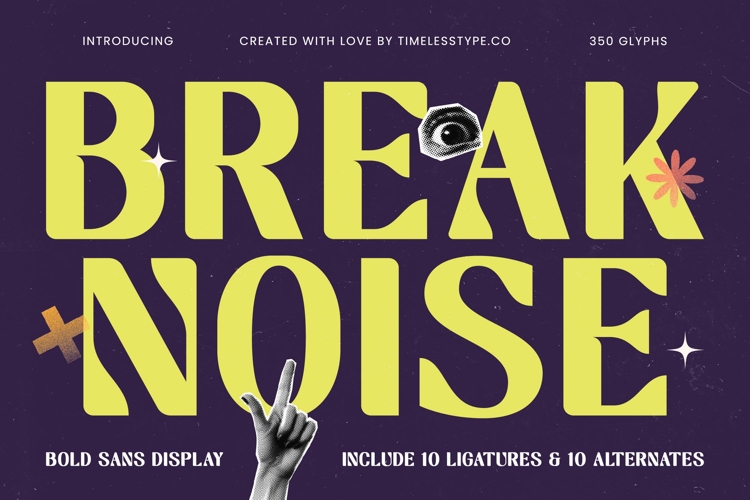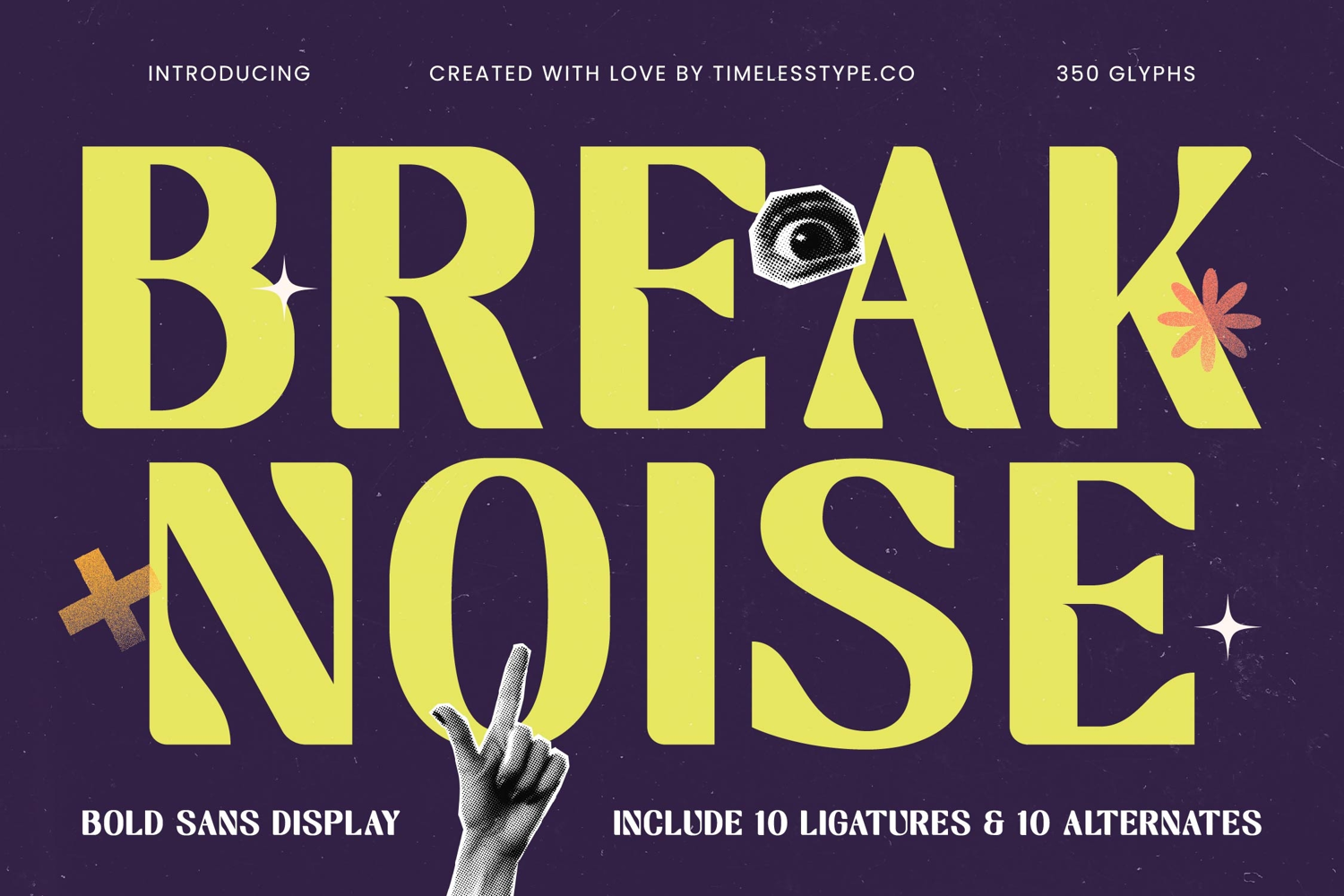
Break Noise - Bold Sans Display
Ignite your designs with undeniable presence. Introducing Break Noise - Bold Sans Display, a striking display typeface engineered for maximum impact and visual intrigue. Its robust, solid forms combined with subtly rounded terminals create a bold yet approachable aesthetic, perfect for commanding attention. This sans-serif gem offers a distinctive character that blends vintage modern appeal with contemporary sharpness, setting your work apart.
Unleash unparalleled creative freedom with a font designed for versatility. Break Noise - Bold Sans Display provides designers with a rich toolkit, including 350 glyphs, 10 ligatures, and 10 alternates, empowering the creation of truly unique and customized typography. Its inherent boldness ensures your message stands out, making it an ideal choice for high-impact headlines and memorable branding that resonates.
Expand your global reach effortlessly. With its extensive multilingual support, Break Noise - Bold Sans Display adapts seamlessly across global markets, making it incredibly versatile for international projects. This feature ensures your designs resonate worldwide, maintaining their professional integrity and bold statement no matter the language.